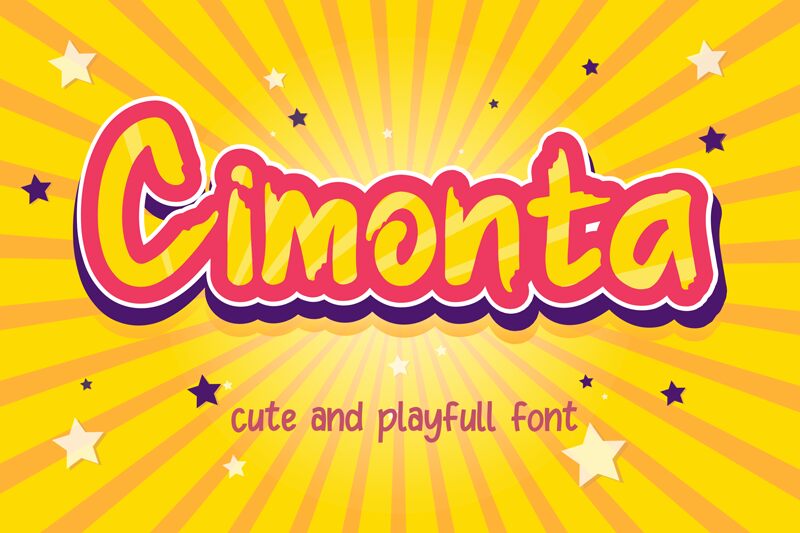
Introducing Cimonta, a bold and cute brush font designed by Pandanwangi 2021. With its whimsical, playful style, this versatile font is perfect for creating eye-catching headlines and logos that stand out. It's also great for adding a splash of fun to invitations, posters, and other craft projects.